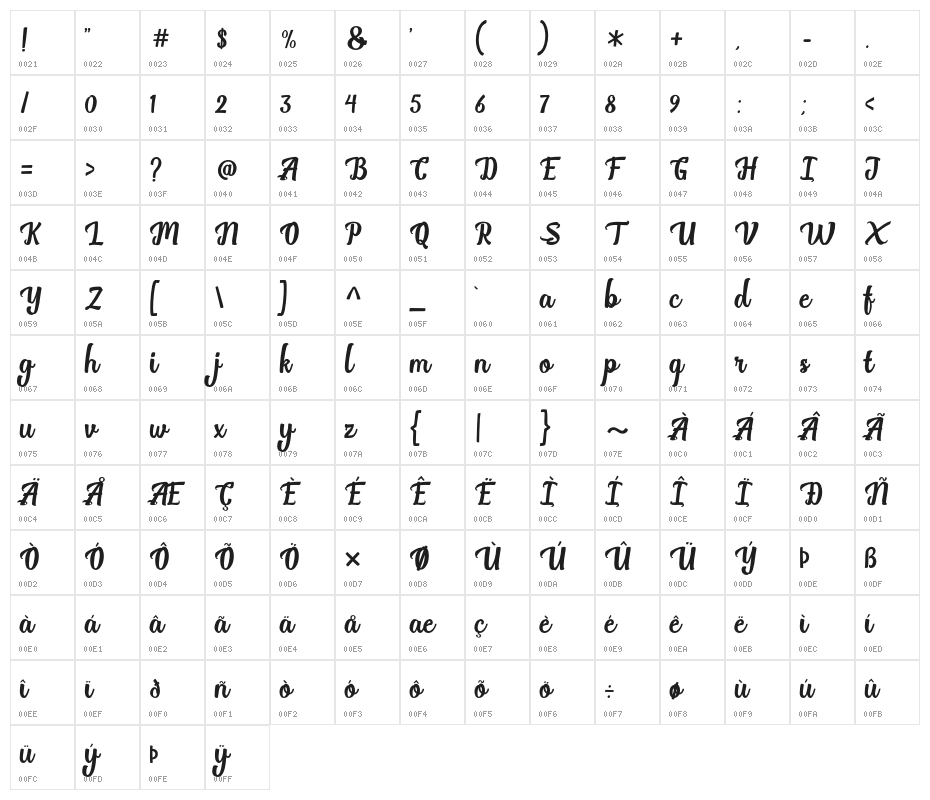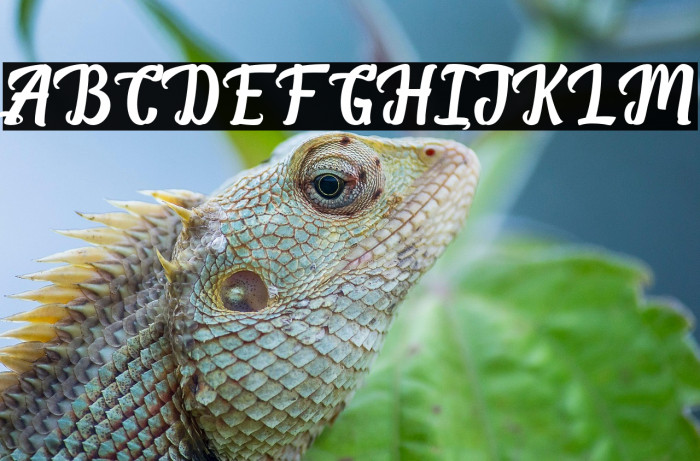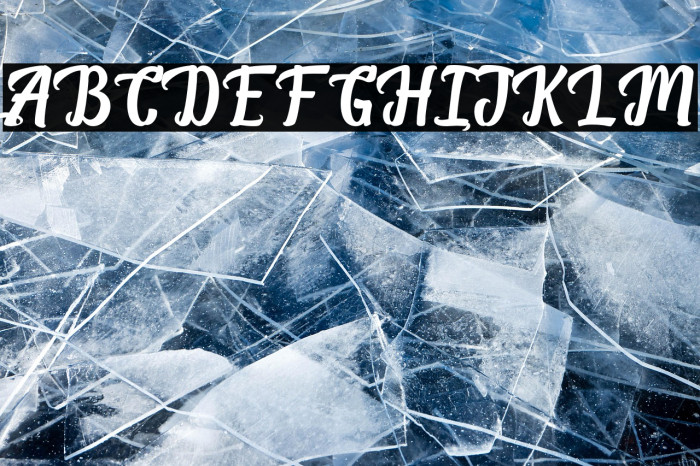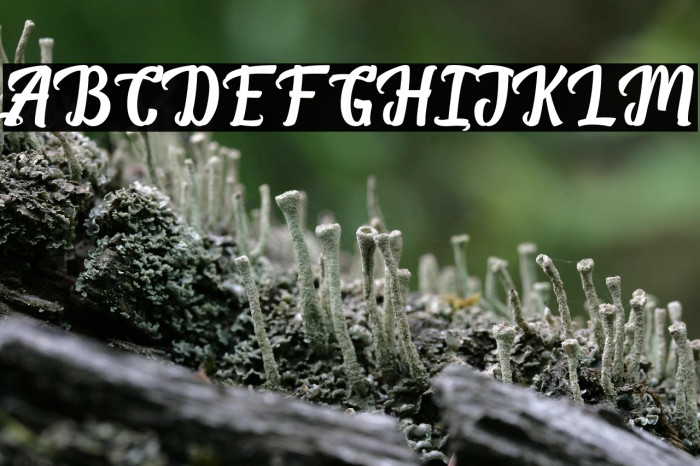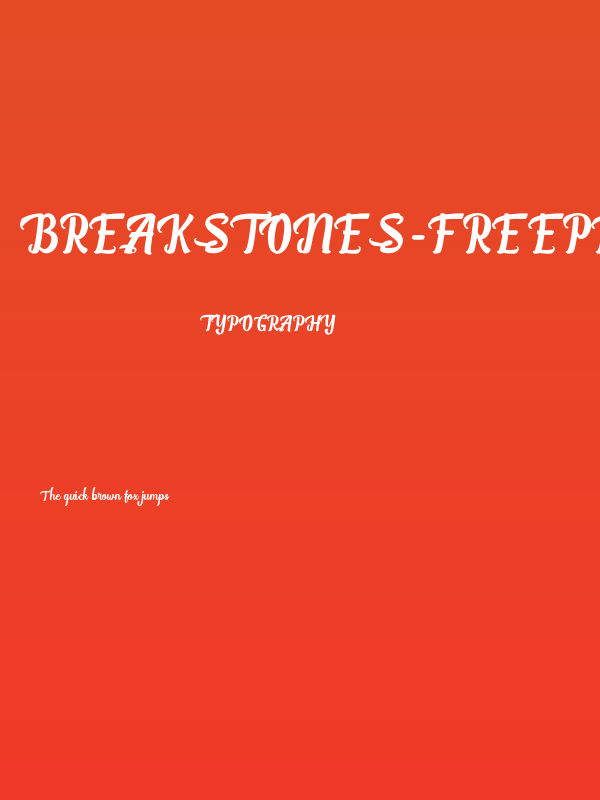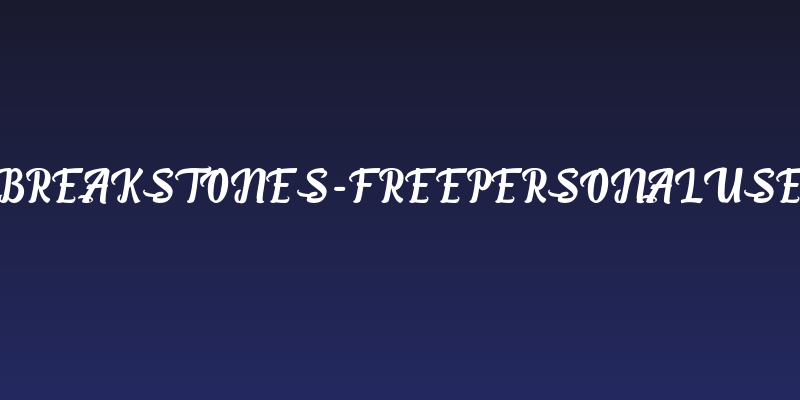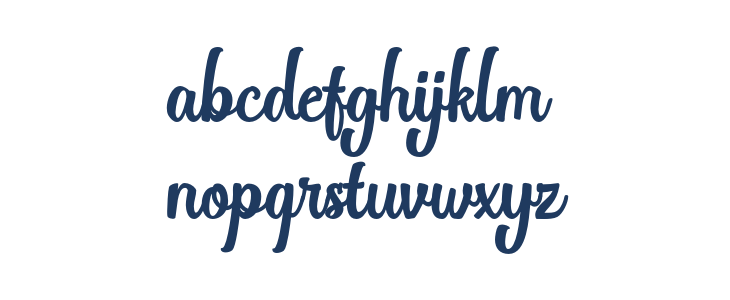
BreakStones-FreePersonalUse Font
BreakStones-FreePersonalUse Description
This font features a bold and flowing script style, characterized by smooth, rounded edges and a consistent stroke width. The uppercase letters are elegantly designed with a slight slant, giving them a dynamic and lively appearance. The lowercase letters maintain a cohesive look with their connected strokes, enhancing the script's fluidity. Numbers and special characters are crafted to match the overall aesthetic, ensuring uniformity across all glyphs. The font's design is both playful and sophisticated, making it suitable for a variety of creative applications.
| Proposed Projects | Ideal for branding, invitations, greeting cards, and creative projects that require a playful yet sophisticated touch. |